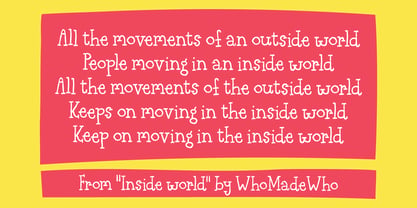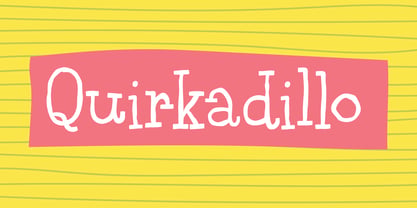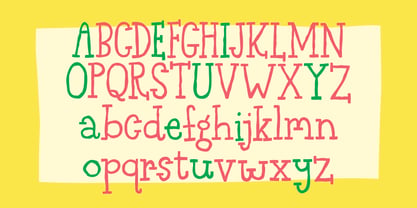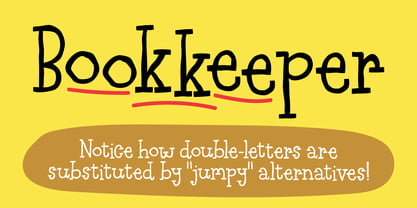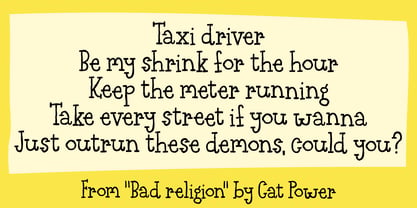
Quirkadillo
by Bogstav
The Quirkadillo Font Family was designed by Jakob Fischer and published by Bogstav. Quirkadillo contains 2 styles and family package options. More about this family
Loosely based on classic seriffed typefaces such as Garamond and Georgia - but that’s where the comparison ends!
Quirkadillo is funky, wild surprisingly legible and kind of geeky at the same time!
Designers: Jakob Fischer
Foundry: Bogstav